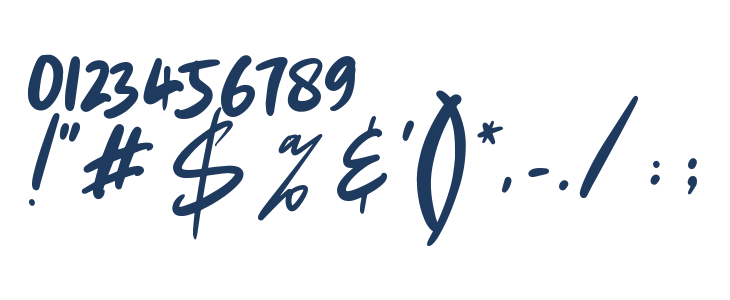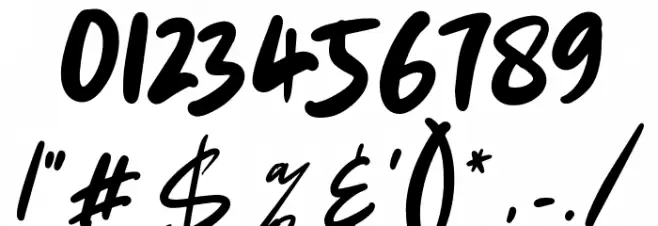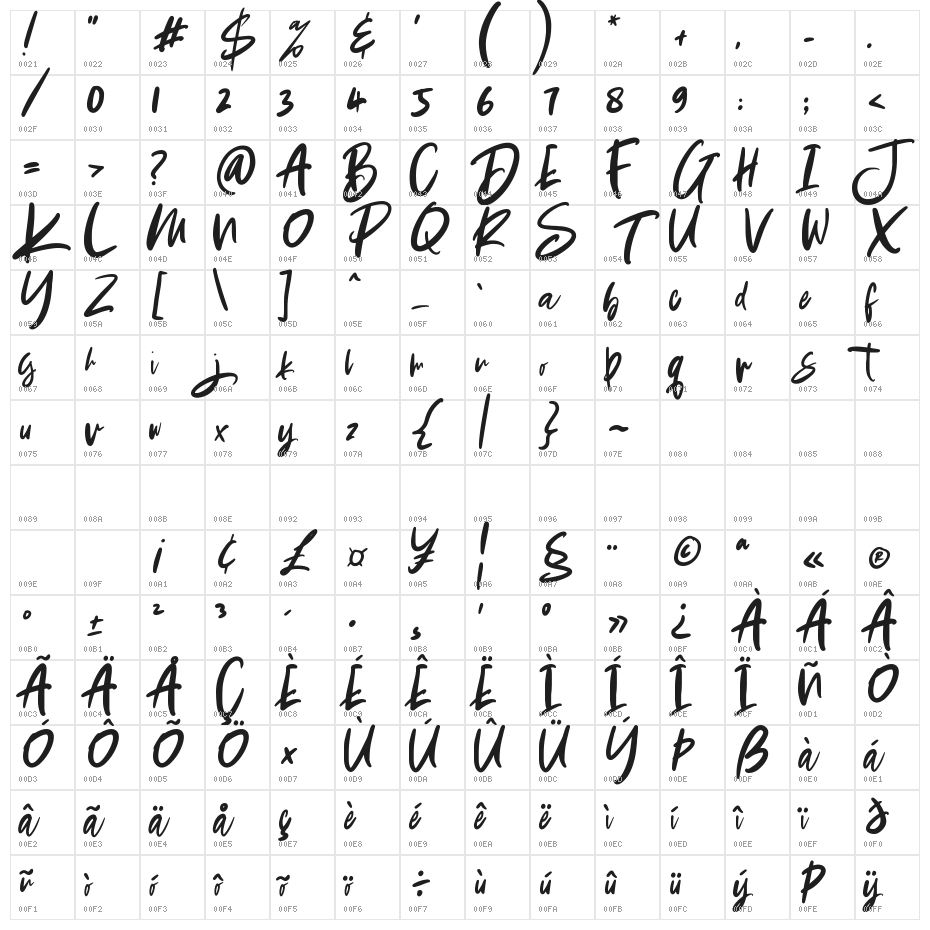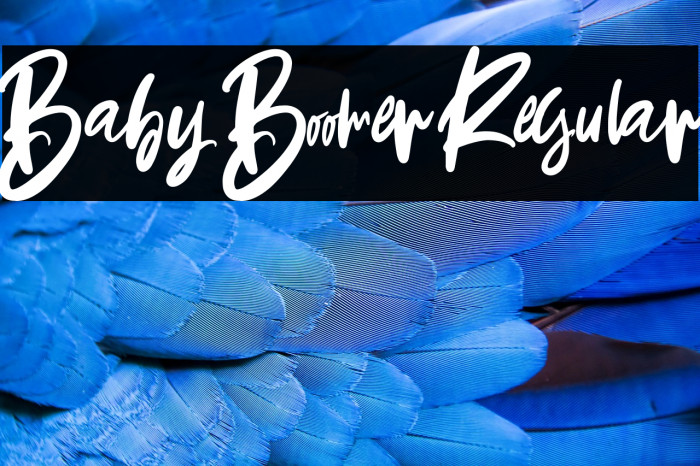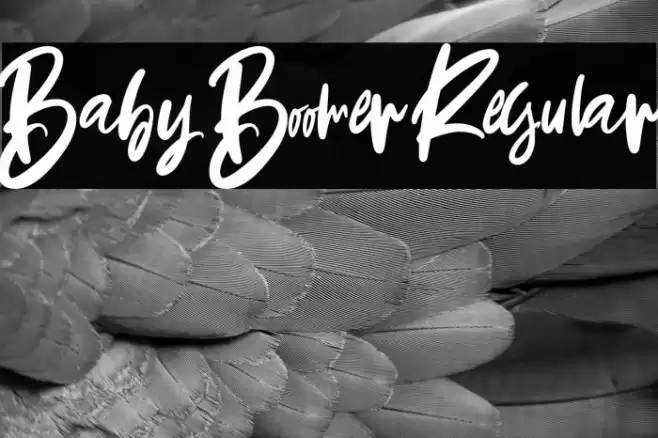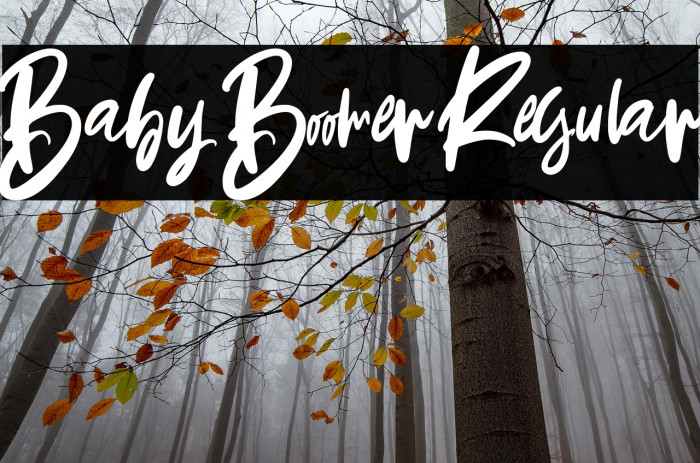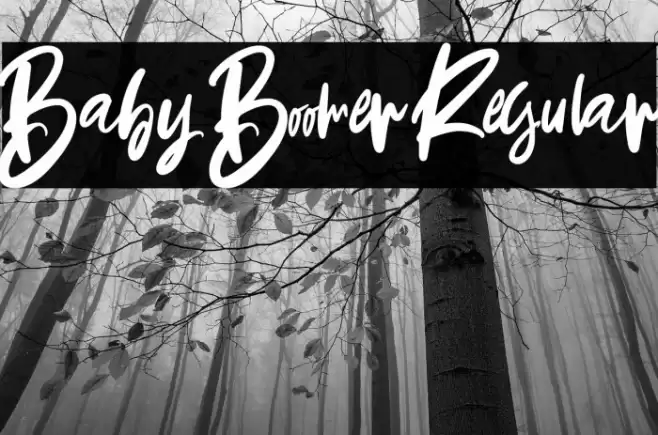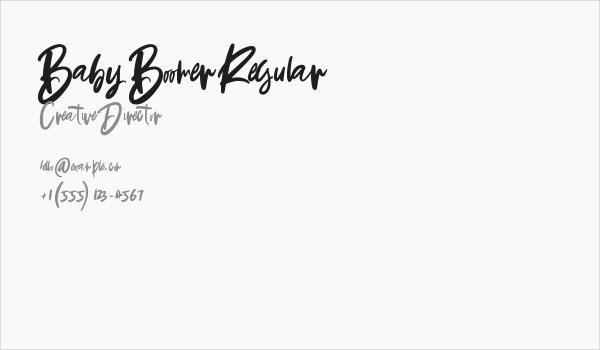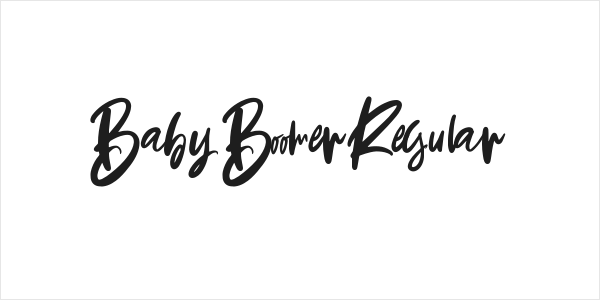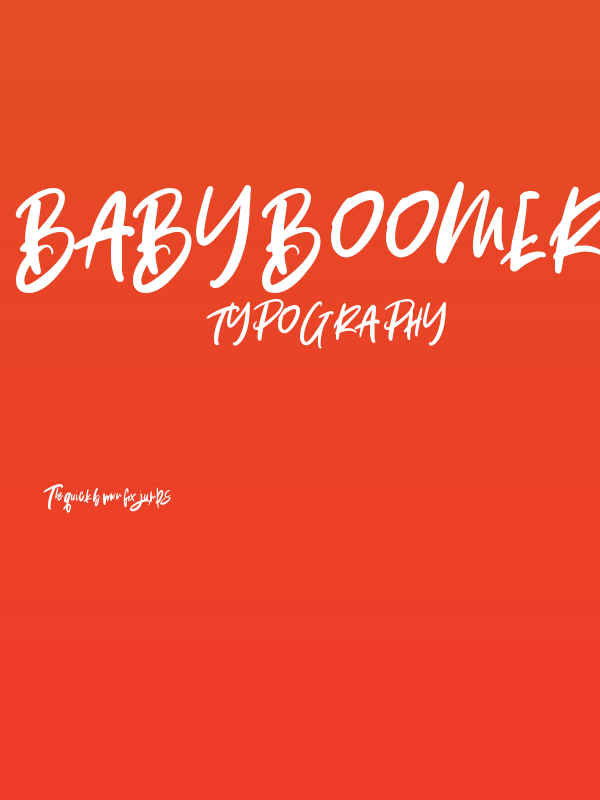
Baby Boomer Regular Font
Baby Boomer Regular Description
This font exudes a lively and energetic vibe with its bold, handwritten style. The characters are fluid and dynamic, featuring a playful yet sophisticated flair. The uppercase letters are tall and slightly slanted, while the lowercase letters maintain a consistent flow with a touch of whimsy. Numbers are bold and clear, matching the overall style. Special characters are creatively integrated, adding to the font's versatility. The strokes are thick, providing a strong visual impact, and the overall appearance is both modern and expressive.